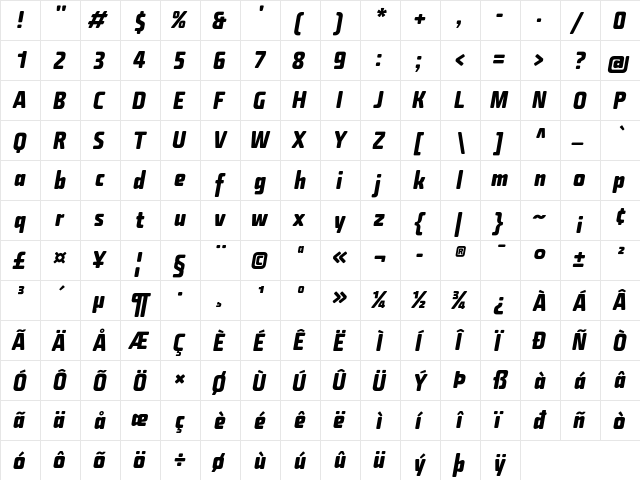
Fishmonger CB Italic
Design Context for Fishmonger CB Typeface
Fishmonger CB offers clean, dependable letterforms without strong stylistic allegiance, making it a practical choice for designers who need flexibility. The dynamic lean of this cut emphasises speed and emphasis in any layout.
Pro Tip: Use Fishmonger CB for emphasis, pull quotes, and subheadings where its slanted energy can add rhythm to the layout.